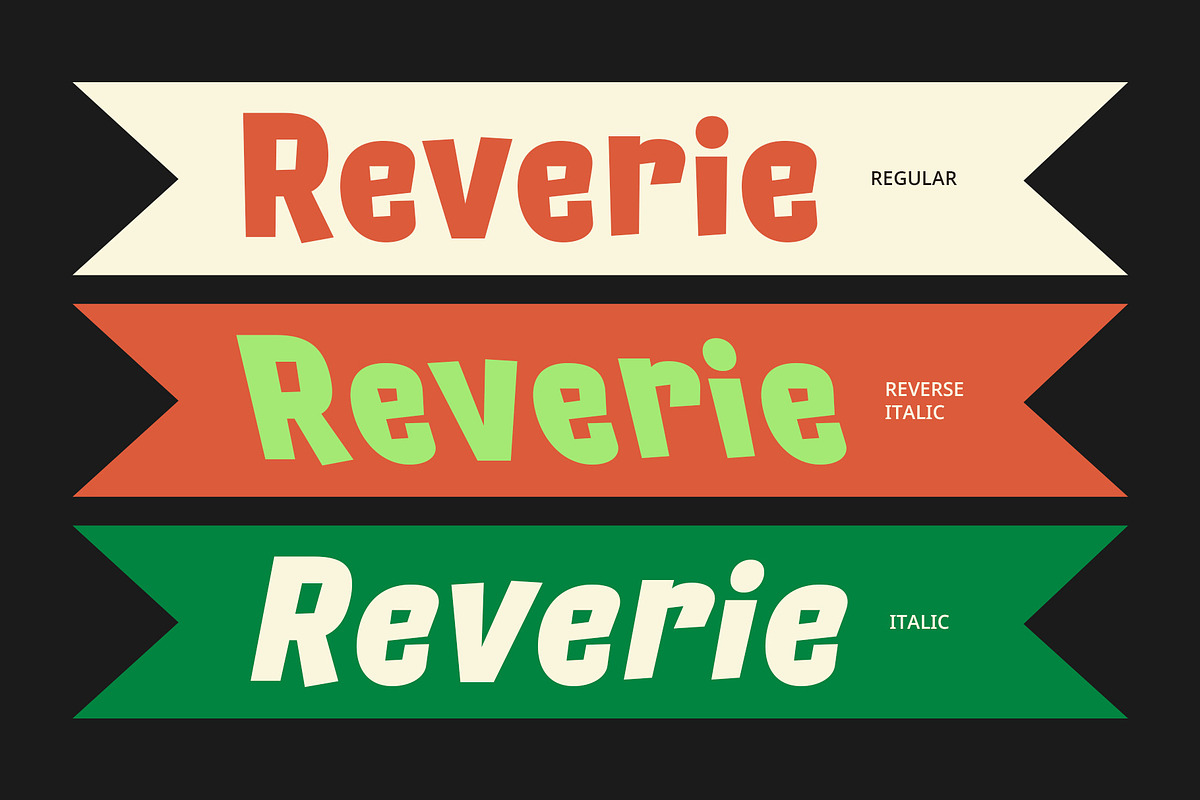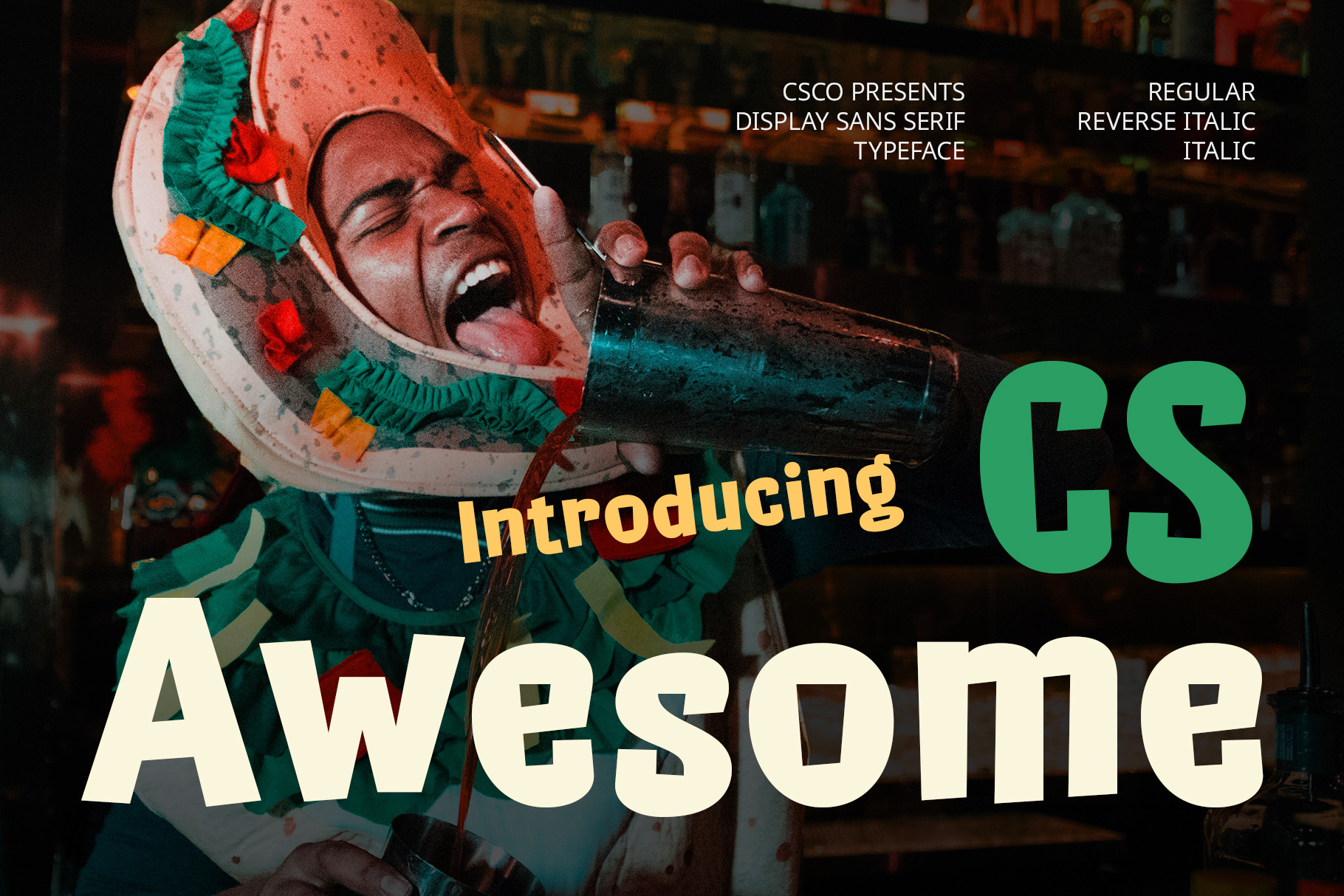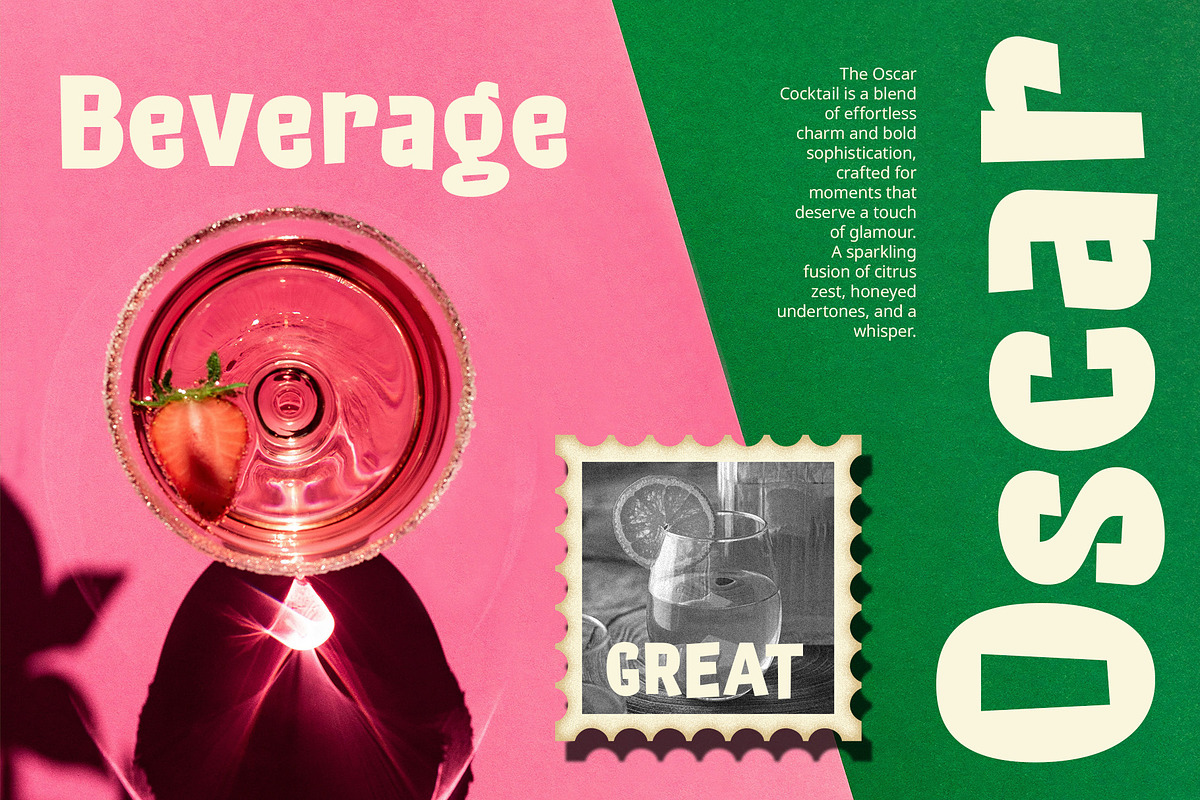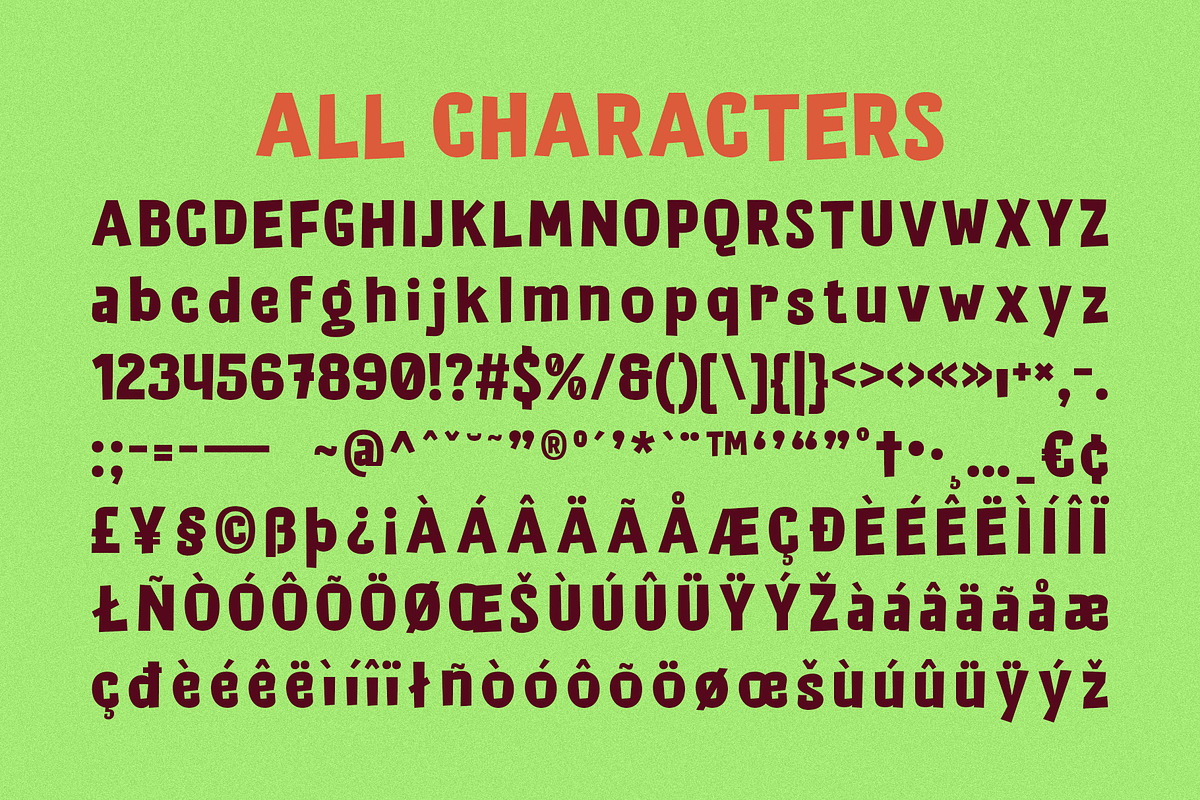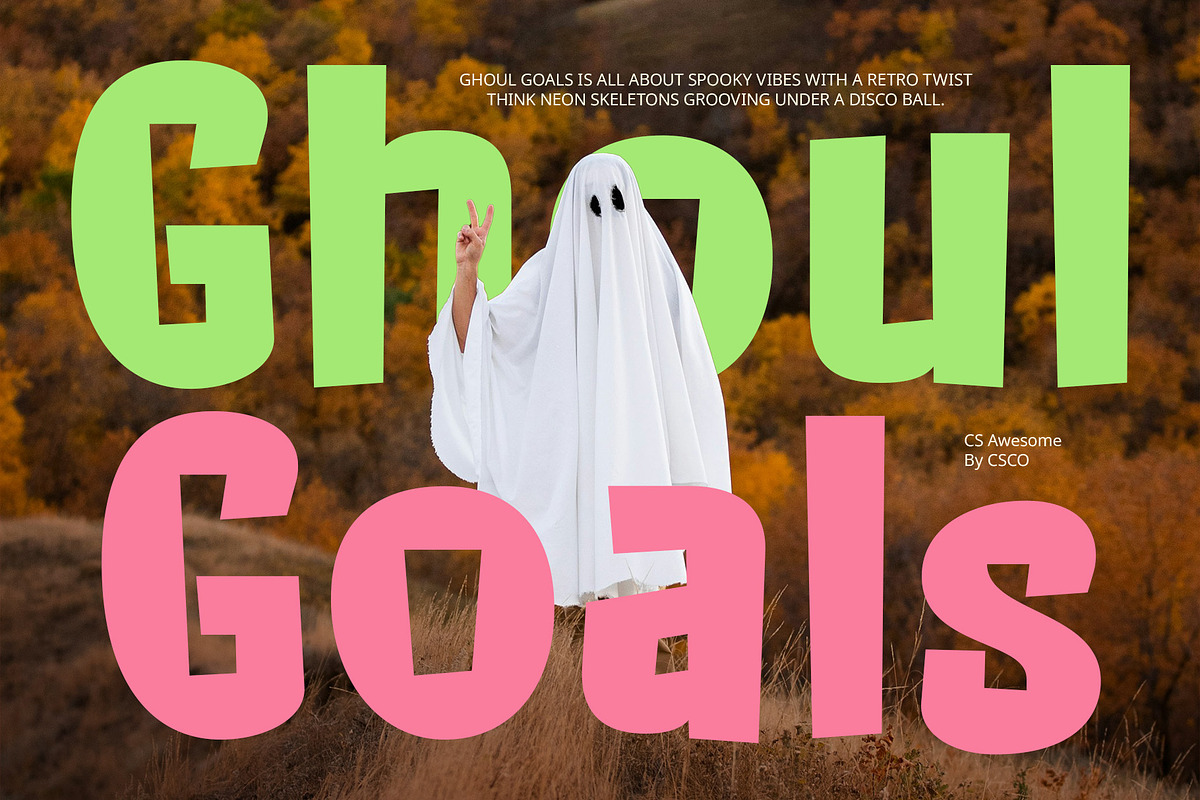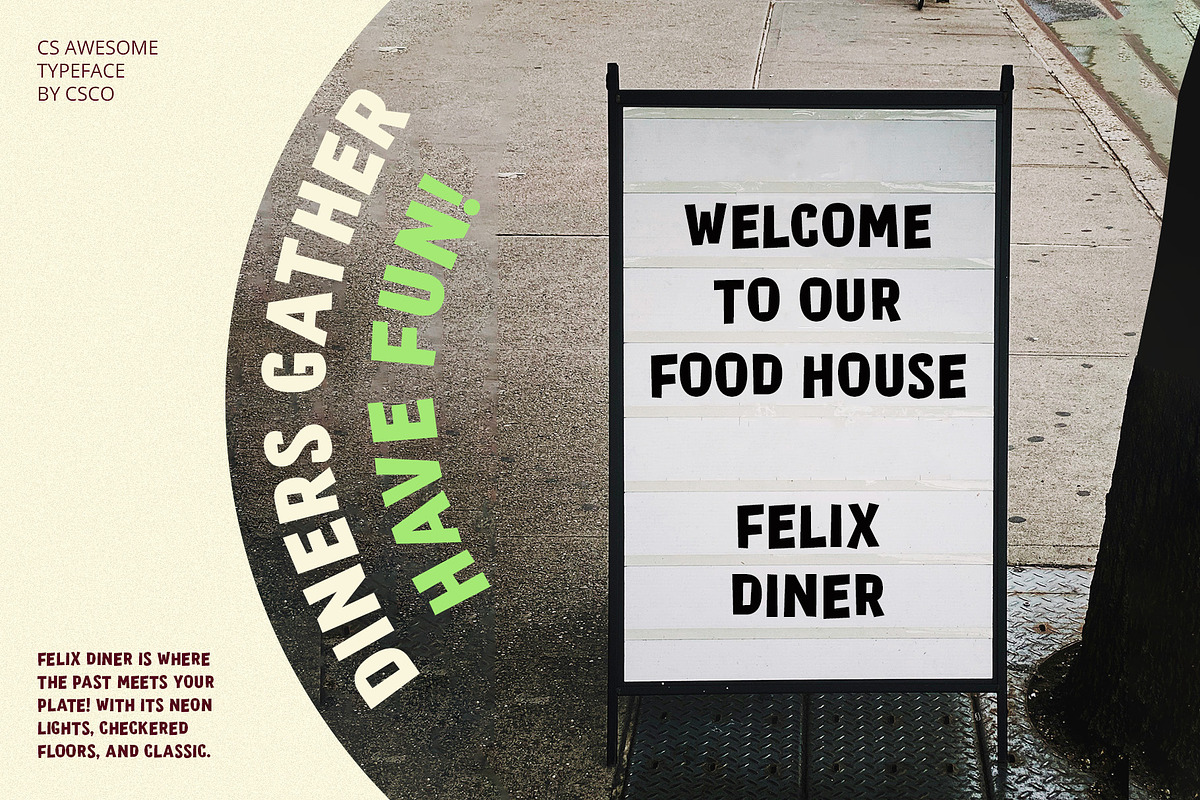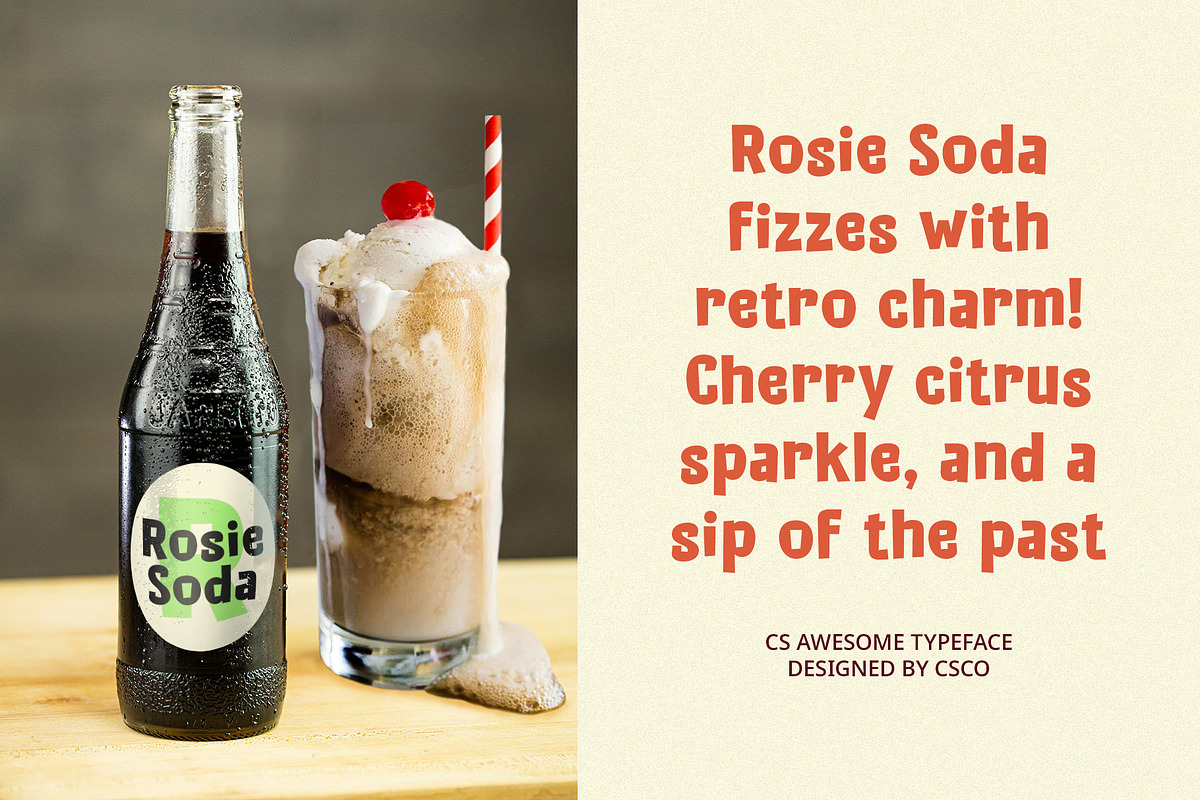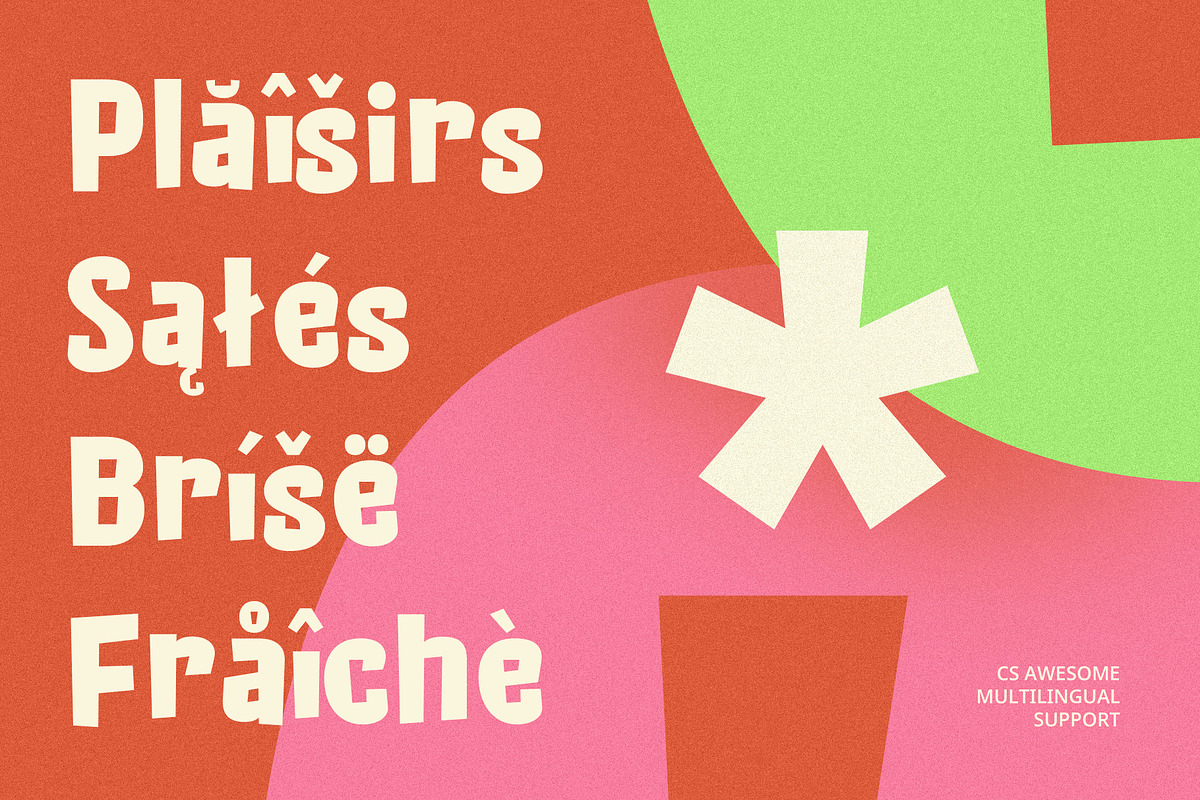
CS Awesome – Fun Font
CS Awesome – Fun Font: Bold, Playful, and Full of Personality
Bold, Informal Display Font with a Funky Vibe CS Awesome – Fun Font is a modern sans serif display font that combines bold, thick letterforms with a relaxed and informal style. The thick strokes create a strong visual presence, while the playful, quirky shapes add a cheerful and carefree vibe. Perfect for projects that need to capture attention and convey a sense of fun, creativity, and energy.
Relaxed, Playful Shapes for a Casual Feel The unique, informal design of CS Awesome ensures it stands out with personality and flair. The rounded, whimsical shapes soften the boldness, making the font approachable and easygoing, ideal for designs that demand a lighthearted touch. Whether you’re creating vibrant branding or event promotions, this font brings an instant sense of joy and excitement to any project.
Perfect for Fun, Creative, and Energetic Designs CS Awesome – Fun Font is the go-to choice for designs that need to convey energy, creativity, and joy. Its bold and playful nature makes it perfect for event posters, music branding, and any project that requires vibrant, dynamic typography. Use it to create an impactful, memorable design that brings a sense of fun to your audience.